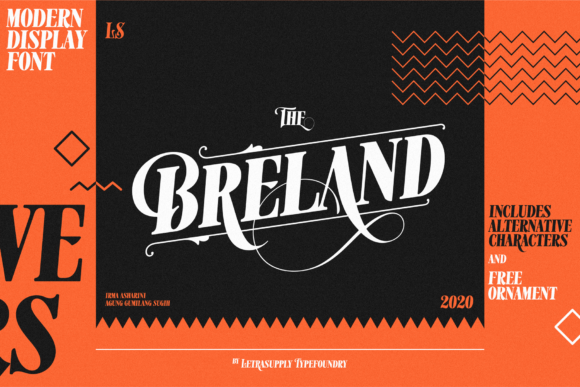
Breland Font: Elevate Your Design with Sophistication
In the world of typography, fonts play a crucial role in conveying the tone and personality of a design. For designers and crafters looking to add a touch of elegance and sophistication to their projects, Breland Font is an excellent choice. This gorgeous high-contrast display font is designed to make a statement, and in this article, we’ll explore its features, benefits, and uses.
What is Breland Font?
Breland Font is a modern, high-contrast display font that exudes an editorial feel. Its unique design makes it perfect for headlines, titles, and other display purposes. The font’s high contrast between thick and thin lines creates a visually appealing effect, adding a level of sophistication to any design.
Key Features of Breland Font
- High-contrast design: Breland Font’s high-contrast design makes it perfect for creating visually appealing headlines and titles.
- Editorial feel: The font’s editorial feel makes it ideal for use in magazines, newspapers, and other publications.
- Sophisticated look: Breland Font adds a touch of sophistication to any design, making it perfect for luxury brands and high-end products.
- Versatile: The font is versatile and can be used in a variety of design projects, from print to digital.
Benefits of Using Breland Font
Using Breland Font in your design projects offers several benefits. Here are a few:
- Grabs attention: The font’s high-contrast design and editorial feel make it perfect for grabbing attention and drawing the reader’s eye.
- Adds sophistication: Breland Font adds a level of sophistication to any design, making it perfect for luxury brands and high-end products.
- Easy to read: Despite its high-contrast design, Breland Font is easy to read, making it perfect for use in body text as well as headlines.
- Unique look: The font’s unique design sets it apart from other fonts, making it perfect for designers looking to create a distinctive look.
Uses of Breland Font
Breland Font is versatile and can be used in a variety of design projects. Here are a few examples:
- Headlines and titles: The font is perfect for use in headlines and titles, where its high-contrast design and editorial feel can make a big impact.
- Magazines and newspapers: Breland Font is ideal for use in magazines and newspapers, where its editorial feel and high-contrast design can add a touch of sophistication.
- Luxury brands: The font’s sophisticated look makes it perfect for use in luxury brand designs, such as packaging, advertising, and website design.
- Digital design: Breland Font can be used in digital design projects, such as website design, social media graphics, and email marketing campaigns.
Tips for Using Breland Font
Here are a few tips for using Breland Font in your design projects:
- Use it sparingly: Breland Font is a bold font, so use it sparingly to avoid overwhelming the reader.
- Pair it with a simple font: Pair Breland Font with a simple font to create contrast and add visual interest.
- Experiment with colors: Experiment with different colors to find the perfect combination that works with your design.
- Pay attention to kerning: Pay attention to kerning to ensure that the font looks professional and polished.
Breland Font is a gorgeous high-contrast display font that adds a touch of sophistication to any design. Its unique design, editorial feel, and high-contrast design make it perfect for use in a variety of design projects, from print to digital. By following the tips outlined in this article, designers and crafters can use Breland Font to create stunning designs that grab attention and convey a sense of luxury and sophistication.